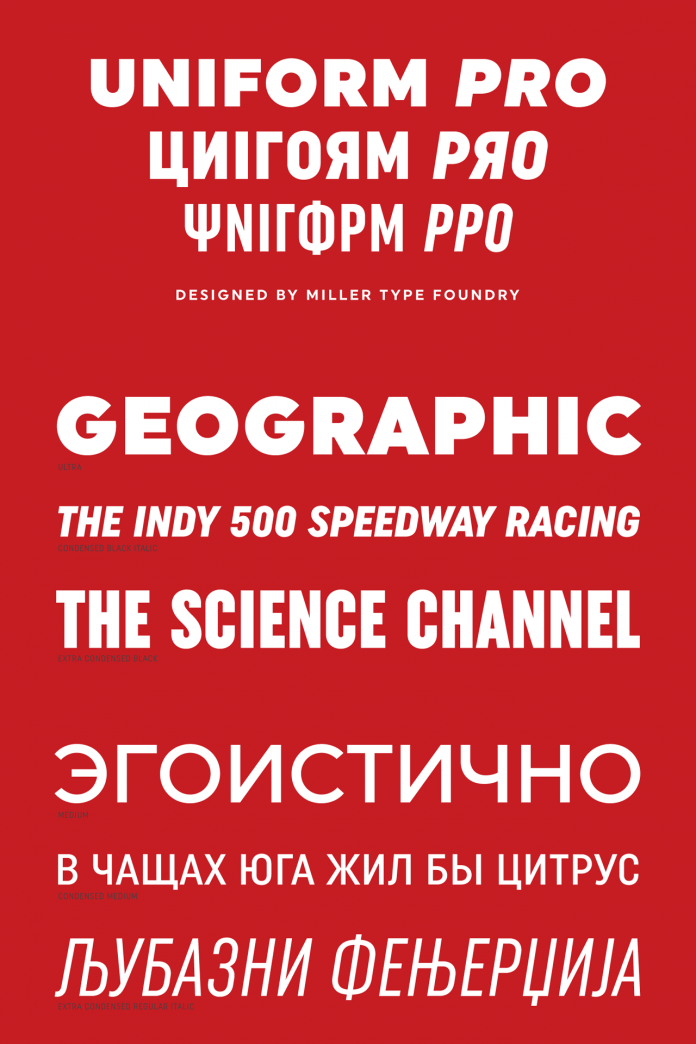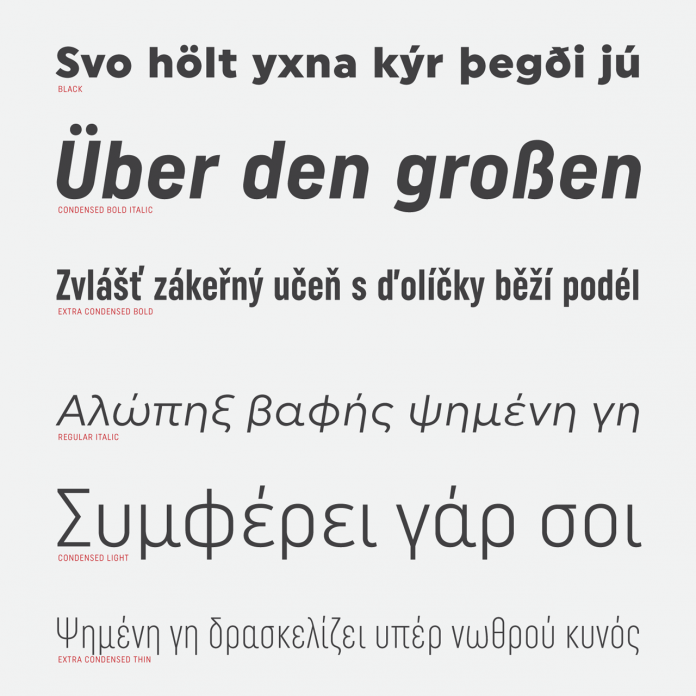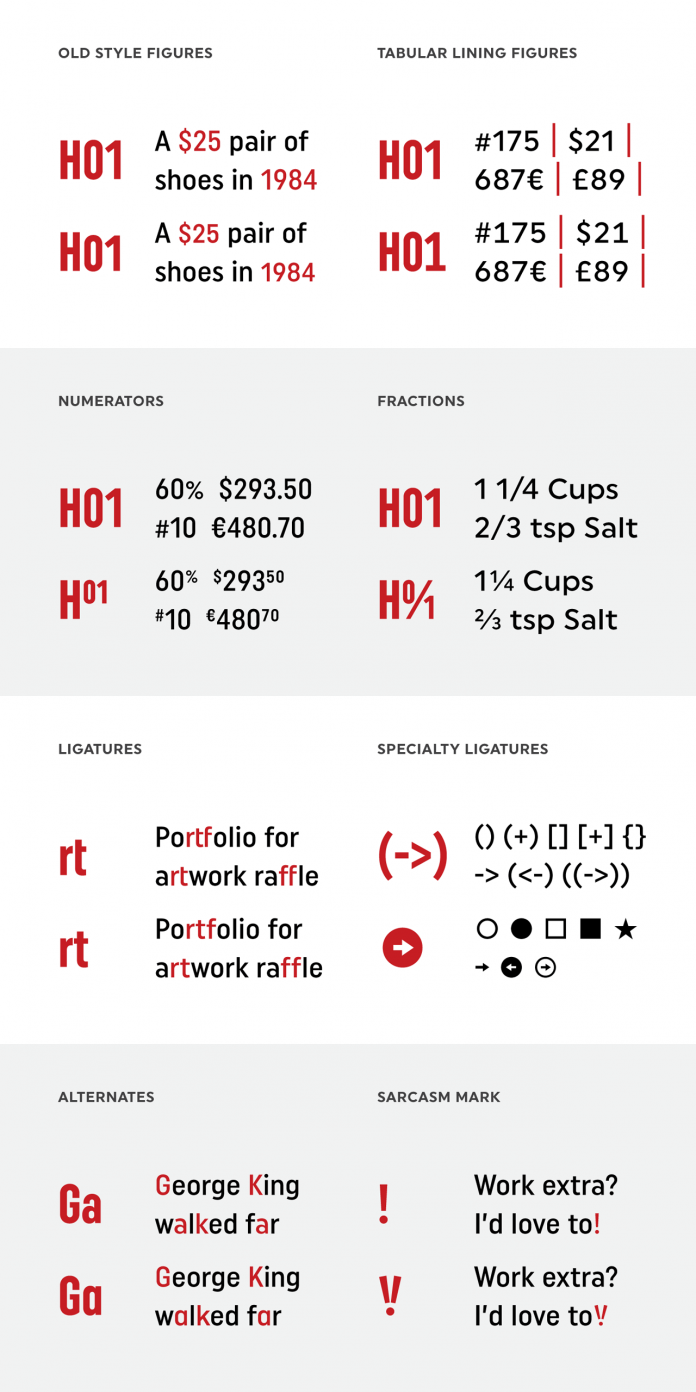
Uniform Pro, a multi-lingual sans serif font family designed by Richard Miller.
Originally published in 2014, the Uniform font family has been created by typeface designer Richard Miller with the aim to create a multi-width geometric typeface based on simple graphic shapes. In early 2020, the Miller Type Foundry has published Uniform Pro, an extended version with multi-language support including Latin, Cyrillic, and Greek character sets, integrated Italic styles, additional weights, and additional OpenType features. The new font family is a true workhorse for a wide range of graphic design projects and editorial work. To learn more about all features, just click on one of the following links or check out the images below.